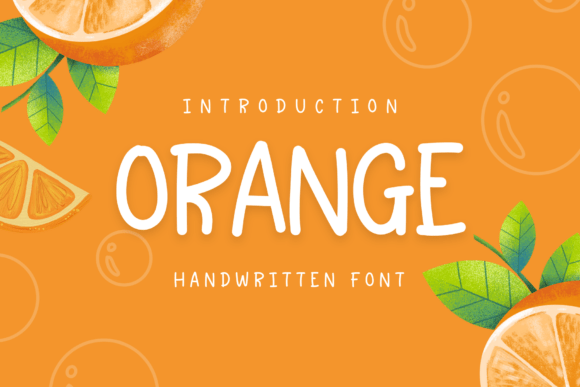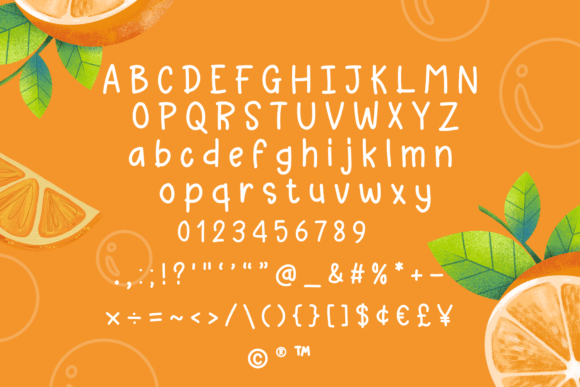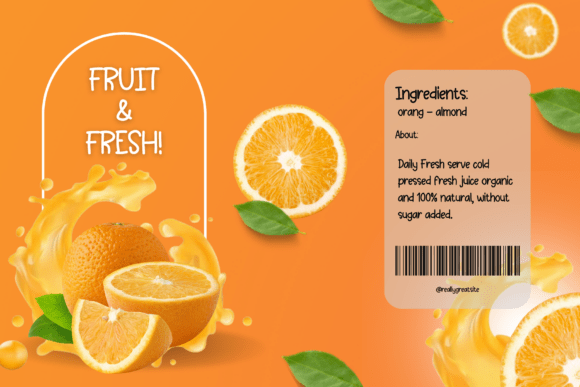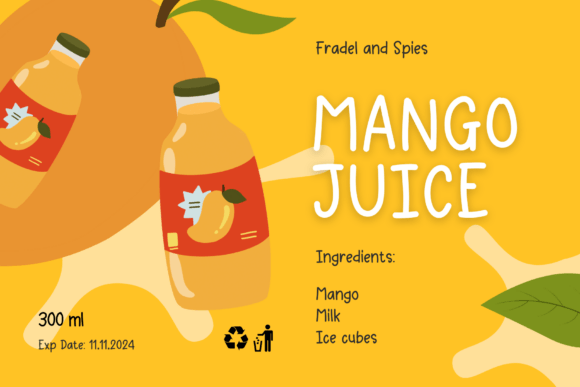
Orange Font
About the Orange Font
Discover the charm of Orange Font. This font is a perfect blend of modern aesthetics and classic appeal. Orange is a handwritten fonts. You can use it for taking notes, writing a diary, or making greeting cards. However, you can still use it for other designs, such as banners, content, mugs, cards, shirts, stationery, social media posts, and more!
Orange Font’s casual, handwritten style is ideal for projects requiring a friendly, approachable feel. It works exceptionally well in headlines, short text blocks on social media, and branding elements for businesses targeting a younger demographic or those with a handcrafted aesthetic. Consider it for packaging, greeting cards, or short-form website copy where readability isn’t paramount. However, avoid using it for body text or UI elements; its informality and varied stroke weights make it unsuitable for extended reading.
Pairing Orange Font with a clean sans-serif like Lato or Open Sans provides a strong contrast, balancing its hand-drawn charm with modern legibility. For a more playful feel, consider pairing it with a geometric sans-serif like Montserrat. A classic serif like Garamond could be used to add a touch of sophistication, creating a unique and balanced look.
The overall personality of Orange Font is friendly and approachable, with a hint of youthful energy. It’s best suited for brands and projects that value authenticity and a personal touch.